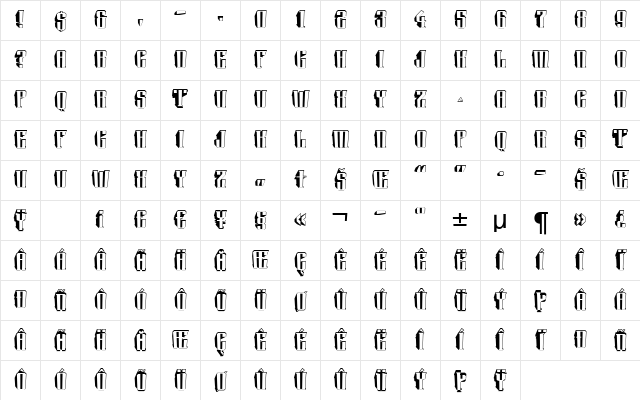
a_Harder3dTrnUp Regular
Designer: W.Chufarofsky & M.Slutsker
Design Context for a_Harder3dTrnUp
a_Harder3dTrnUp is a composed and adaptable typeface that performs quietly and consistently across a wide range of design contexts.